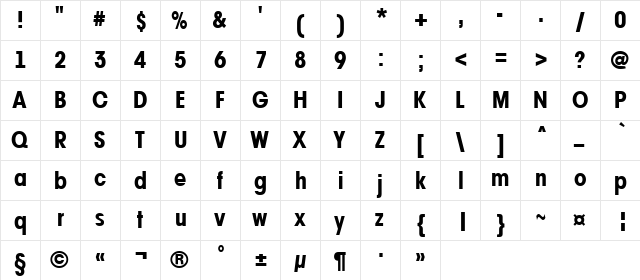
a_AvanteTckNr ExtraBold Font Preview
a_AvanteTckNr ExtraBold
Design Context for a_AvanteTckNr Typeface
a_AvanteTckNr is a composed and adaptable typeface that performs quietly and consistently across a wide range of design contexts. Its bold stroke weight gives it real presence on the page.